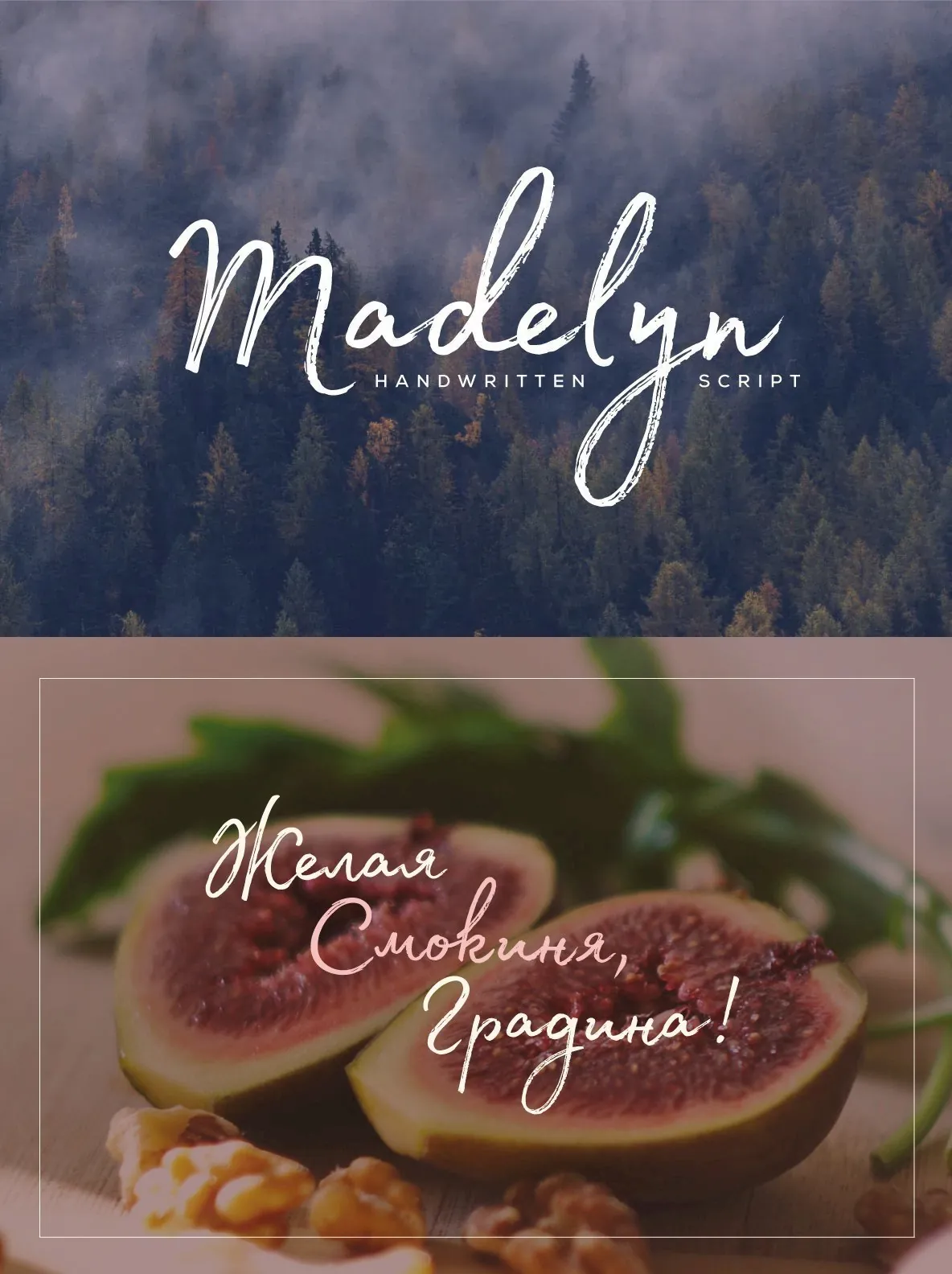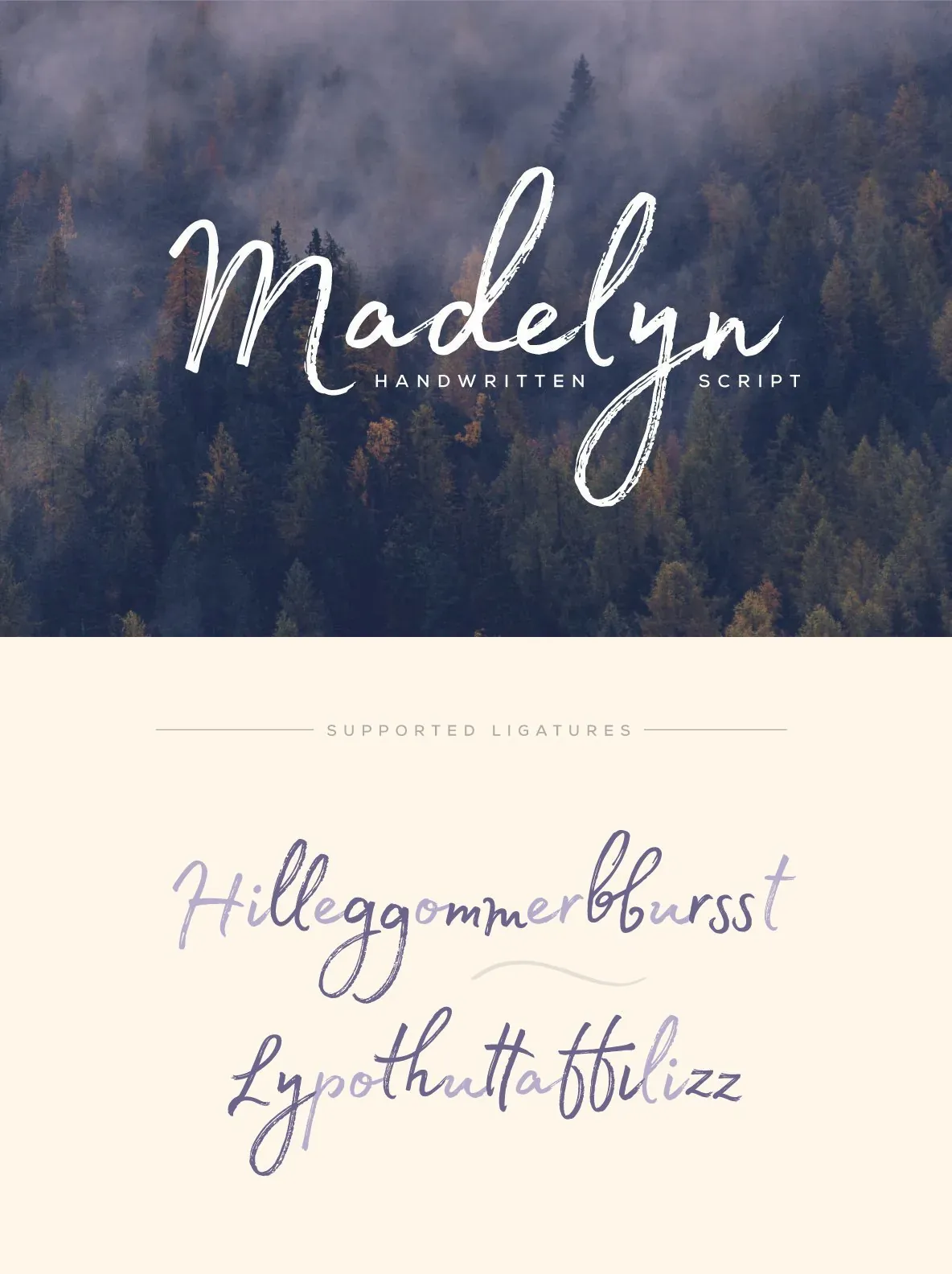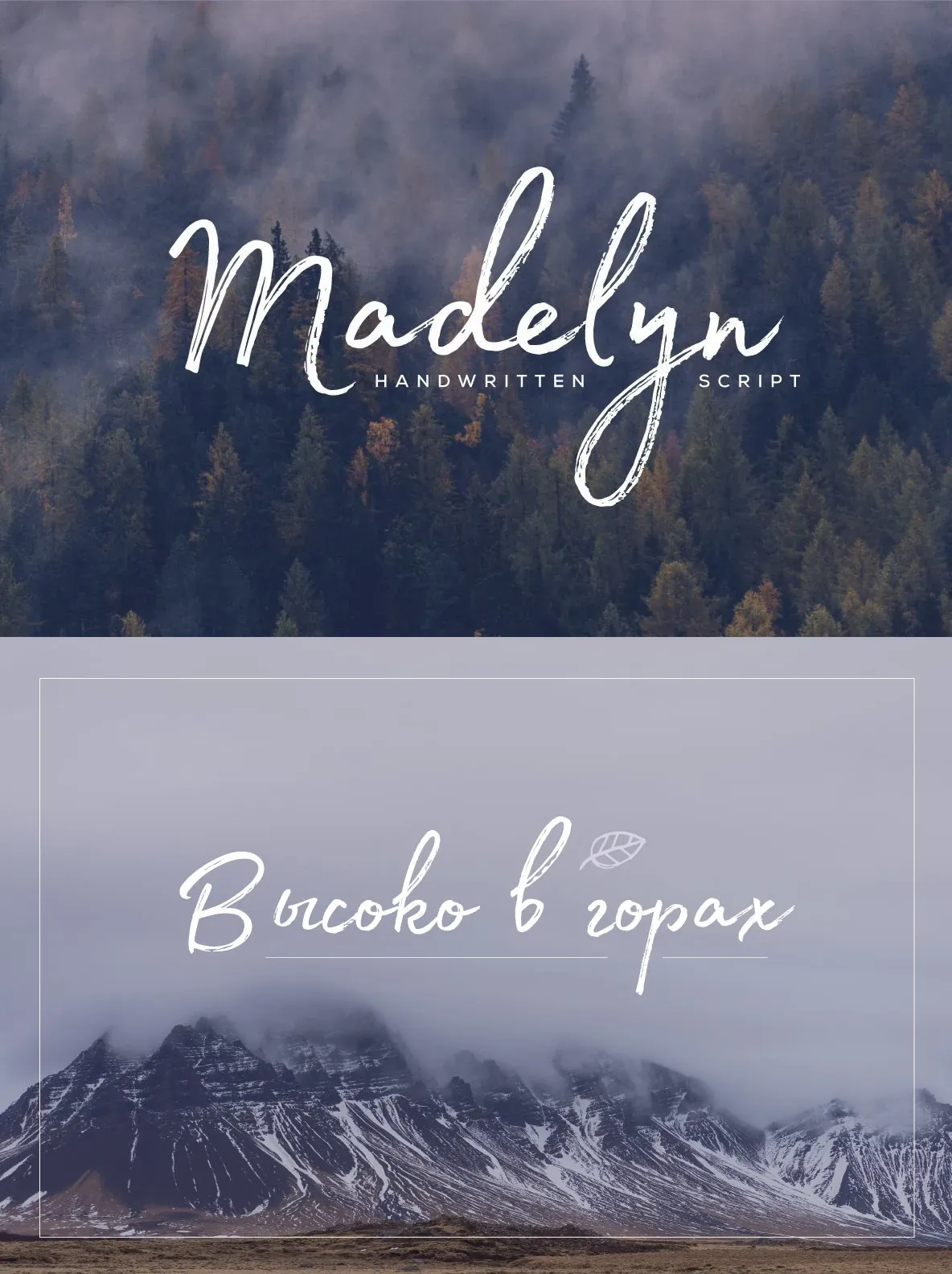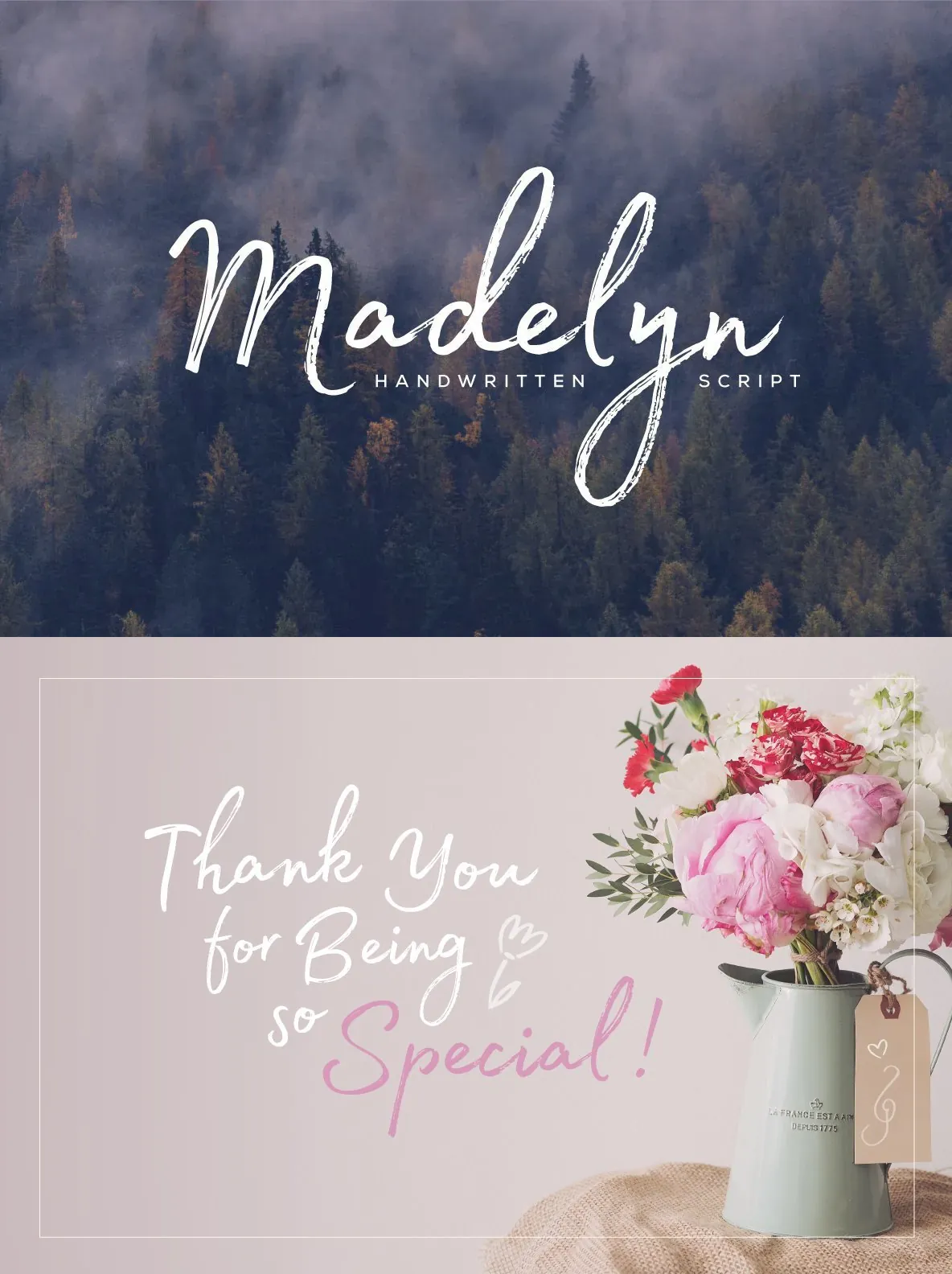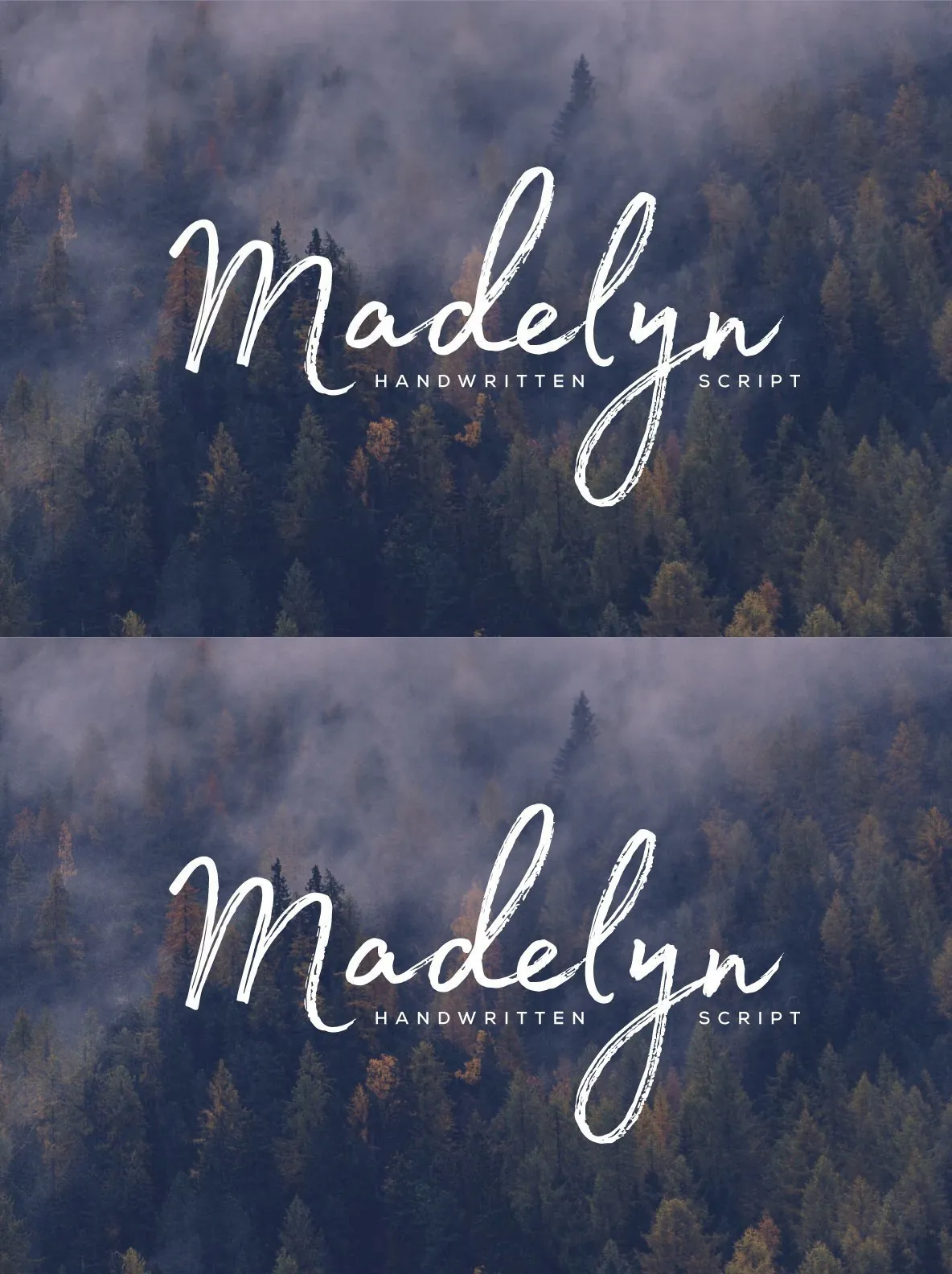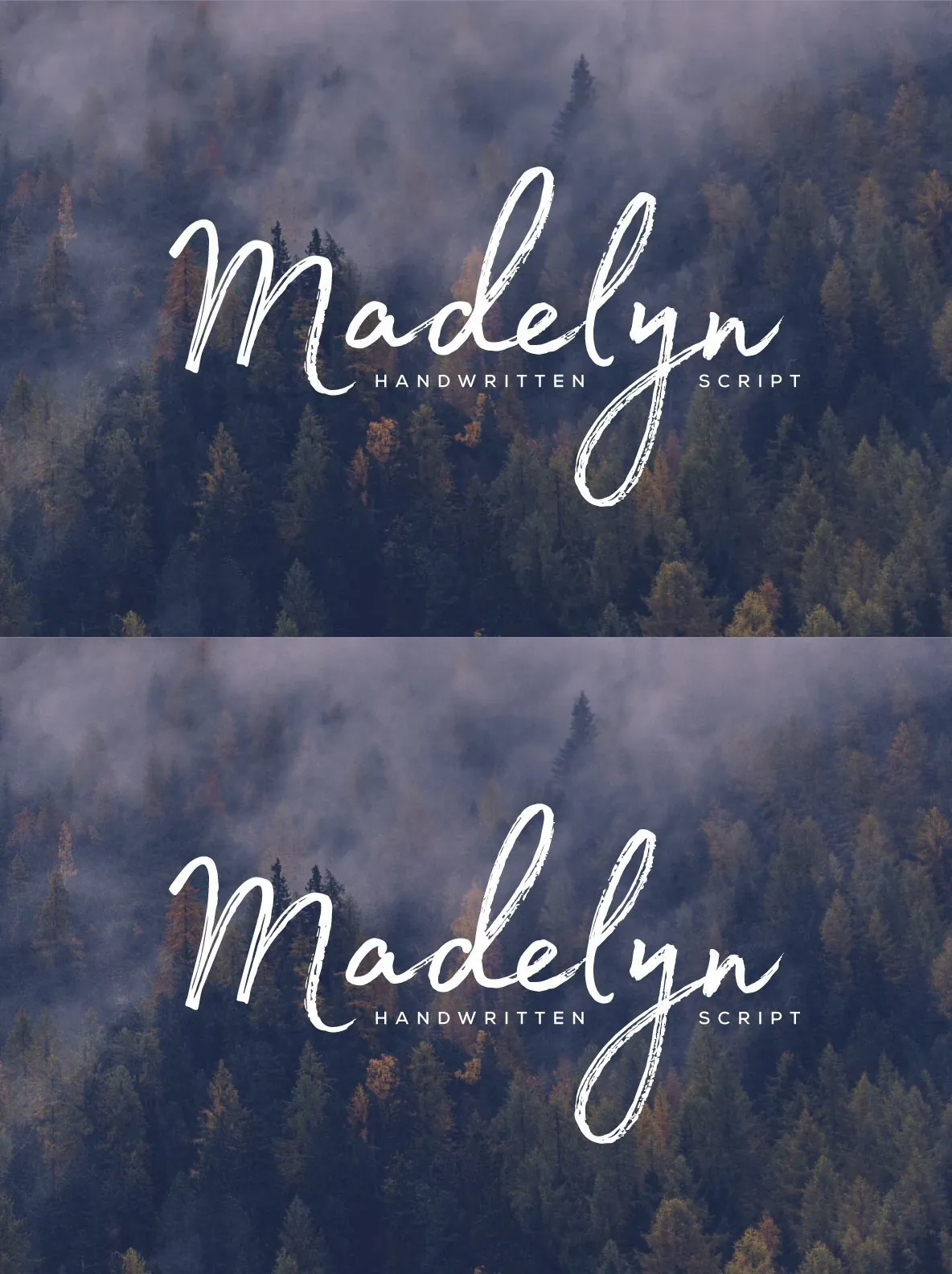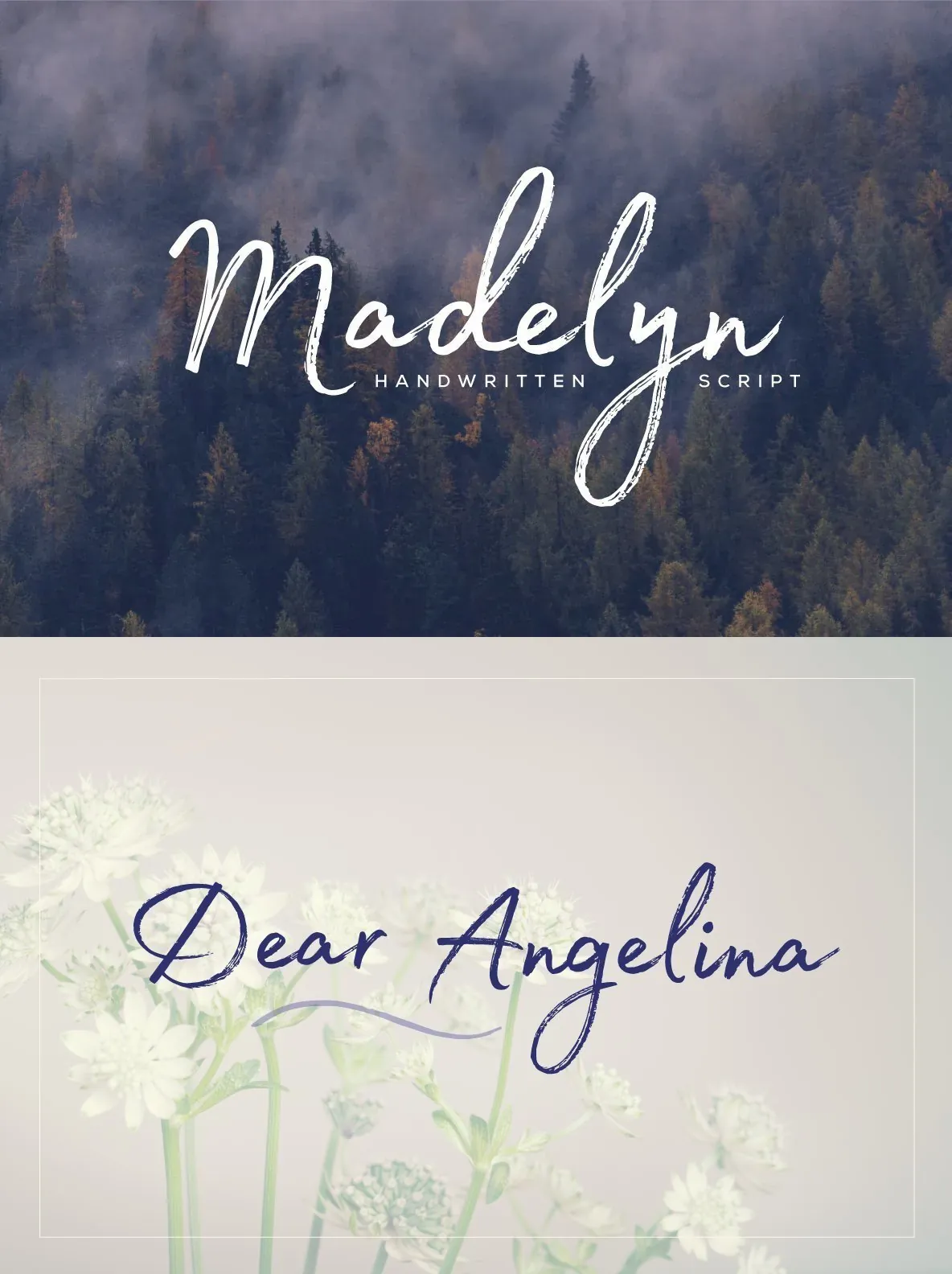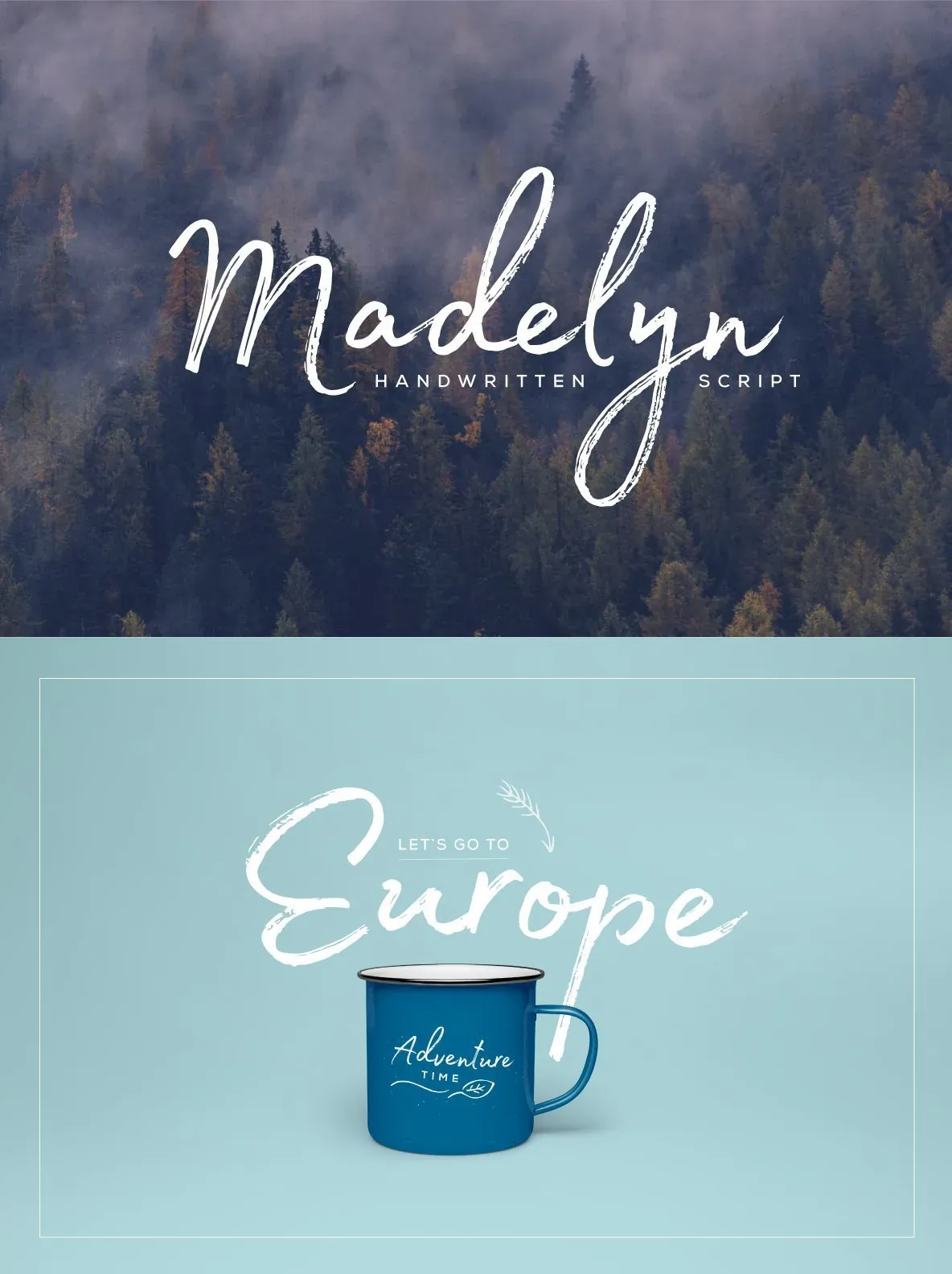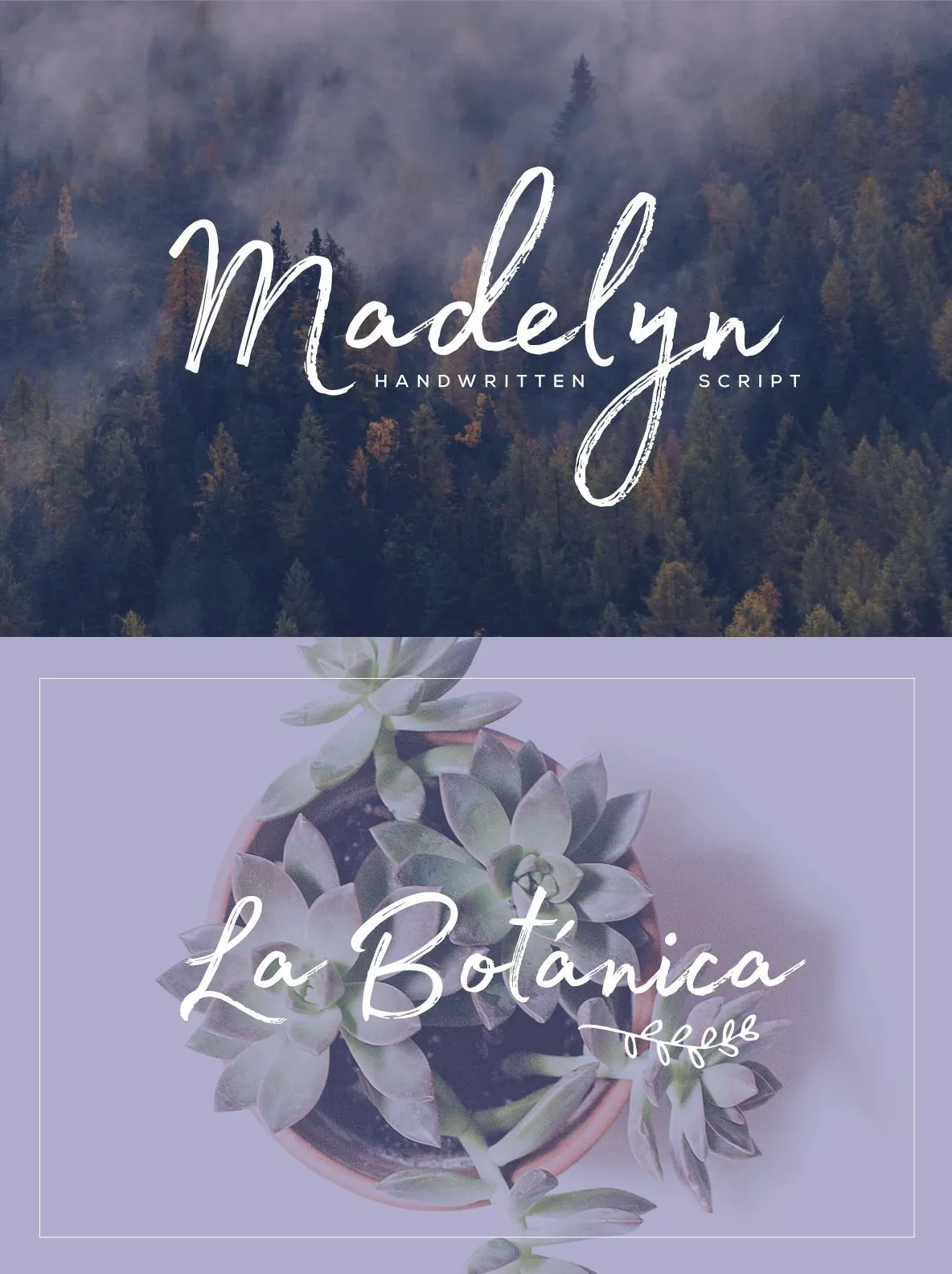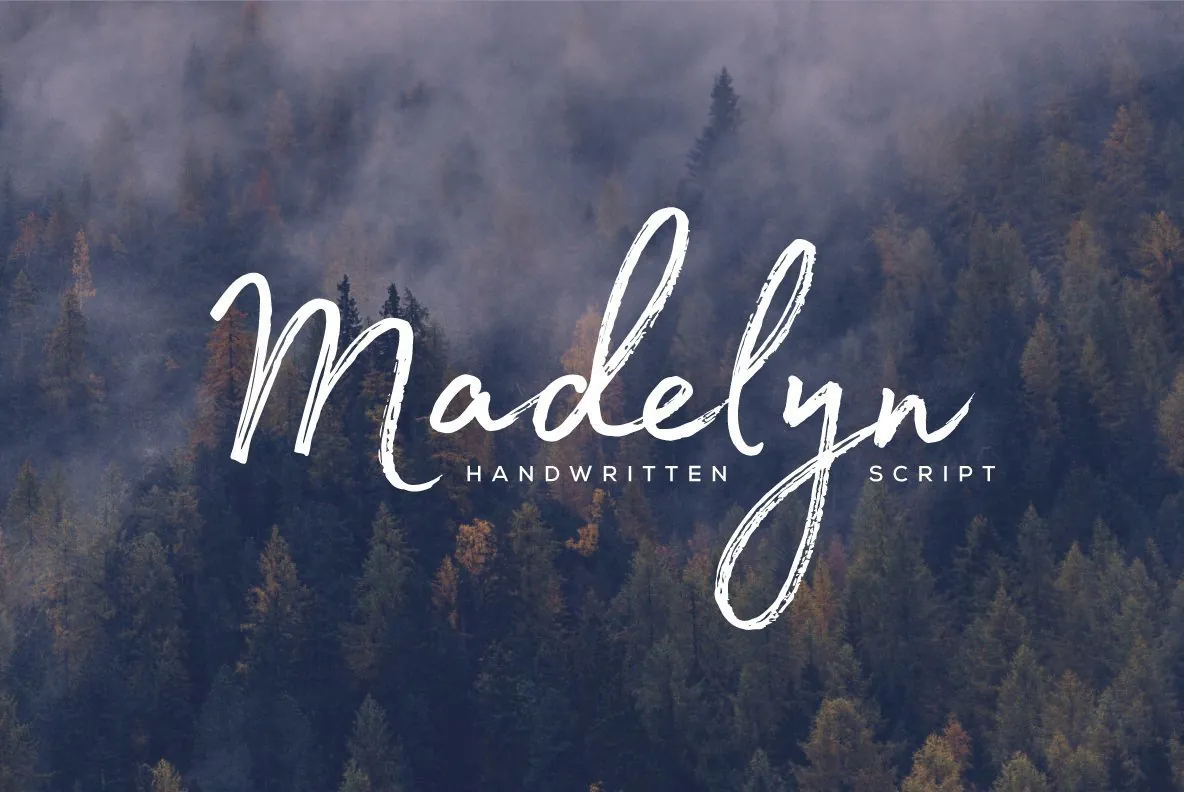
Madelyn Handwritten Script Font
Madelyn brings an inviting, organic flair to your projects with its authentic handwritten style. Designed to capture the unique qualities of real handwriting, this script font delivers a sense of warmth and individuality, making it a strong choice for designs that need a personal touch. Madelyn balances elegant curves with a relaxed rhythm, ensuring your work stands apart with character and charm.
Use Madelyn to add personality to branding, invitations, social media graphics, or any creative context where distinctive style matters. Its friendly, approachable look is suitable for both professional and casual settings, giving your message a clear, stylish voice.
Key Features
Organic, handwritten appearance for authenticity
Ideal for branding, invitations, and editorial design
Conveys warmth and individuality in every letter